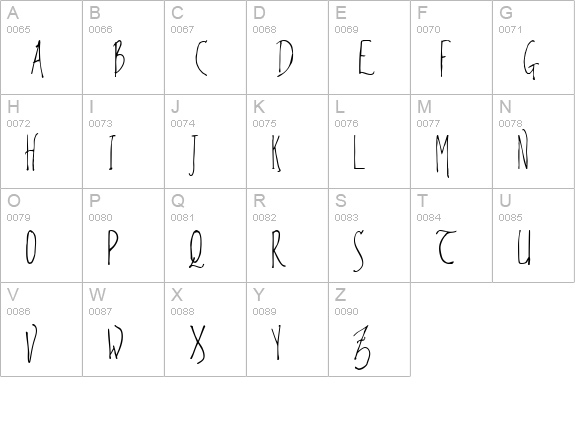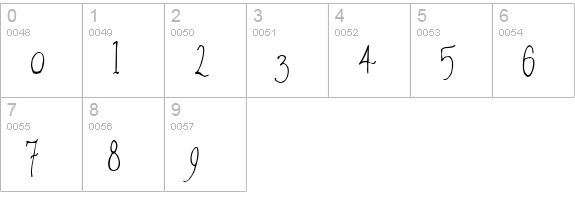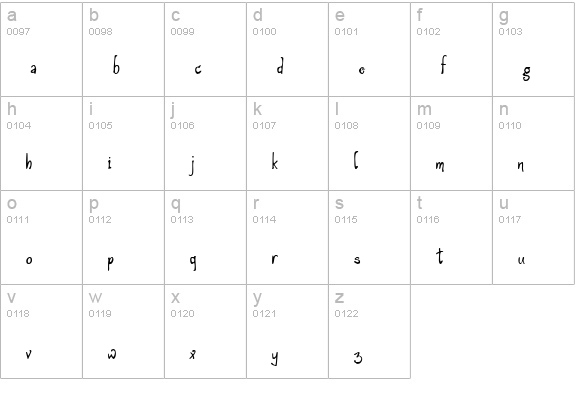
Amethyst Zucchini Font Details
The Amethyst Zucchini font is a unique and eye-catching typeface that combines elegance with a touch of whimsy. Its delicate curves and playful accents make it perfect for a variety of design projects, from invitations to branding to social media graphics. This font exudes a sense of creativity and sophistication, making it a versatile choice for both professional and personal use. What sets Amethyst Zucchini apart is its free-spirited charm and ability to add a touch of personality to any project. Whether you're looking to create a fun and contemporary design or add a pop of color to your work, this font is sure to make a statement. Best of all, Amethyst Zucchini is freely available to download at FontsMarket.com, making it easily accessible for designers and creators looking to elevate their projects with a fresh and distinctive typeface. Embrace the creativity and individuality of Amethyst Zucchini in your next design endeavor and watch as it brings a touch of magic to your work.